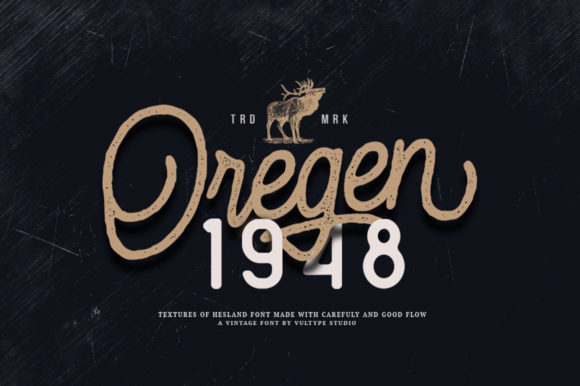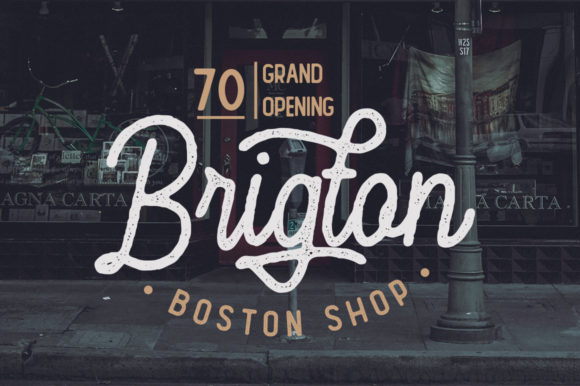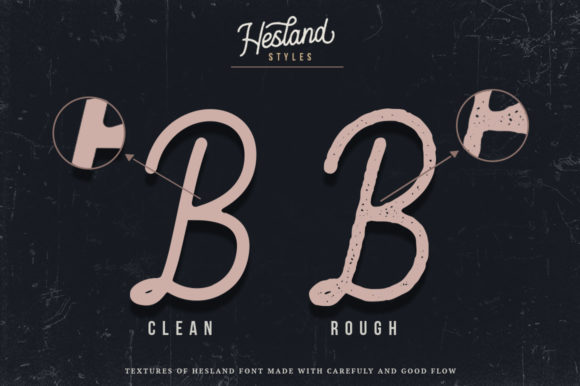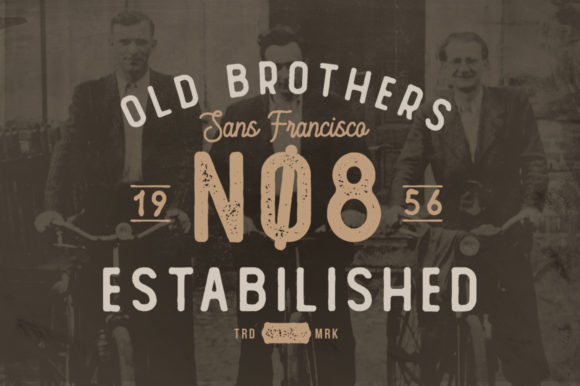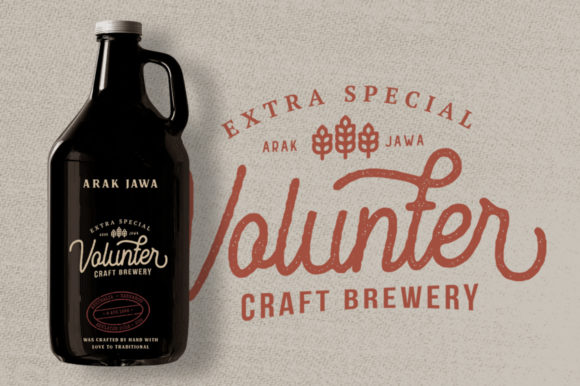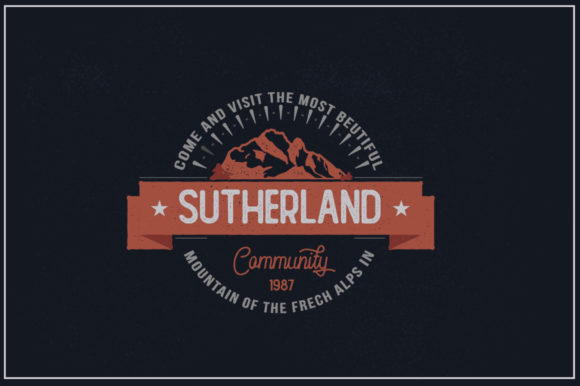
Introduction to Hesland Font
Do you remember the moment you stumbled upon an old, distressed poster in a vintage shop, and the way its worn letters seemed to whisper stories of the past? That’s the magic of the Hesland Font, a simple yet impactful handwritten typeface that captures the essence of classic posters.
With its high-quality design and transparent background, the Hesland Font is a design resource that will transport your creative project to a bygone era. Whether you’re working on a branding project or designing a marketing campaign, this one-of-a-kind typeface will add a touch of nostalgia and elegance to your work.
Key Features of Hesland Font
- Designed with a unique, modern aesthetic, making it perfect for contemporary design projects and branding materials.
- Comes in a single weight, ideal for use as a display font or headline font in creative projects.
Honest Review: Hesland Font
As a designer, I’m always on the lookout for high-quality design resources that can elevate my creative projects. The Hesland Font is one such resource that caught my attention, and I’m excited to share my honest review with you.
- High-quality font with a unique and modern design aesthetic
- Transparent background, making it easy to use in various design scenarios
- Excellent for use in digital design, from logos to social media graphics
- Not ideal for use in print design, as the font may not hold up well in large formats
- No bold or italic font styles available, which may limit its use in certain design scenarios
Overall, I’m impressed with the Hesland Font’s design quality and versatility. While it may have some limitations, it’s still a valuable resource for designers looking to add some modern flair to their creative projects. With a free download and transparent background, it’s definitely worth checking out.
Common Use Cases for Hesland Font
The Hesland Font is a versatile design resource that can be used in a variety of creative projects, including logos, brochures, and website designs. Its high-quality design makes it an excellent choice for any project that requires a professional look.